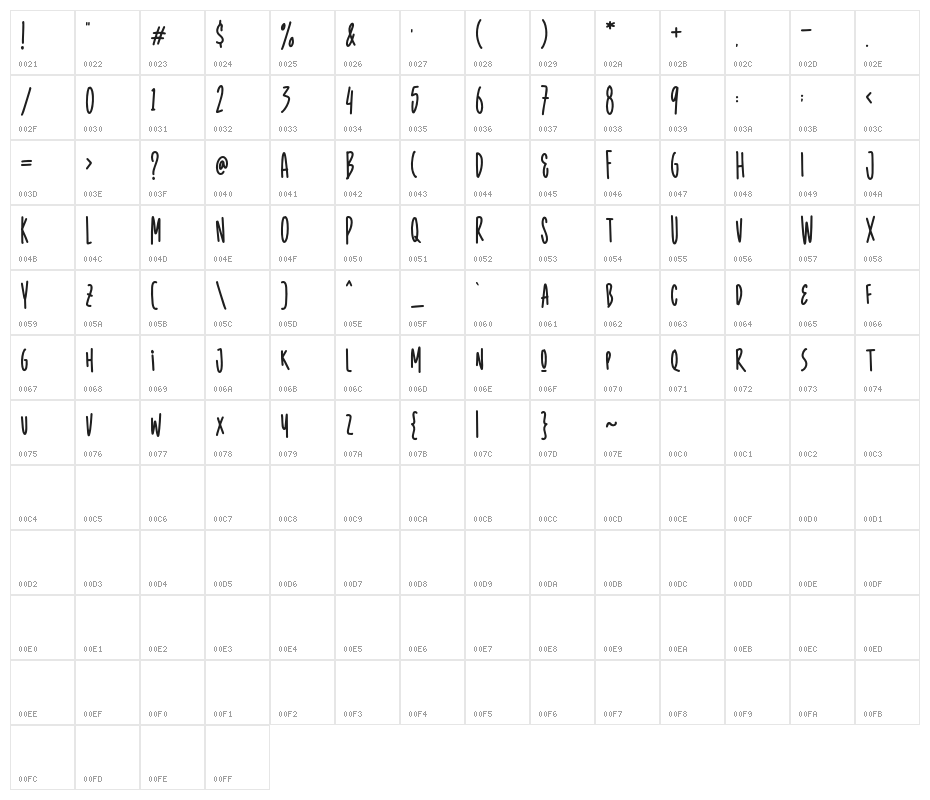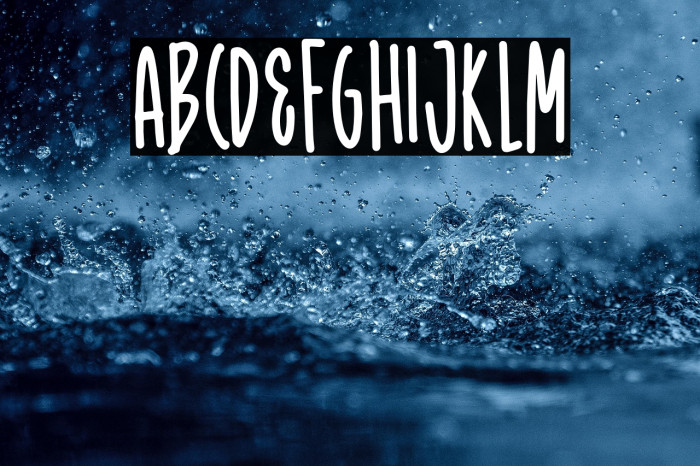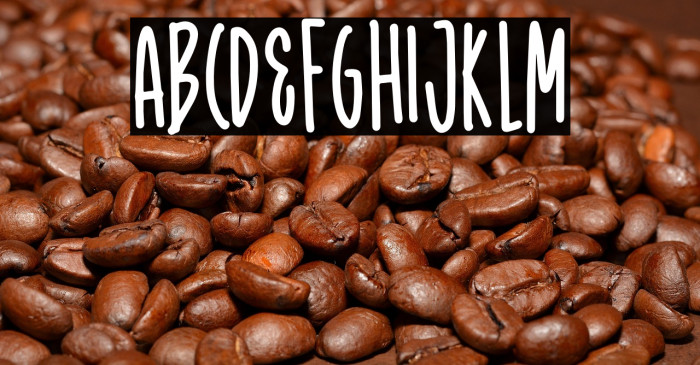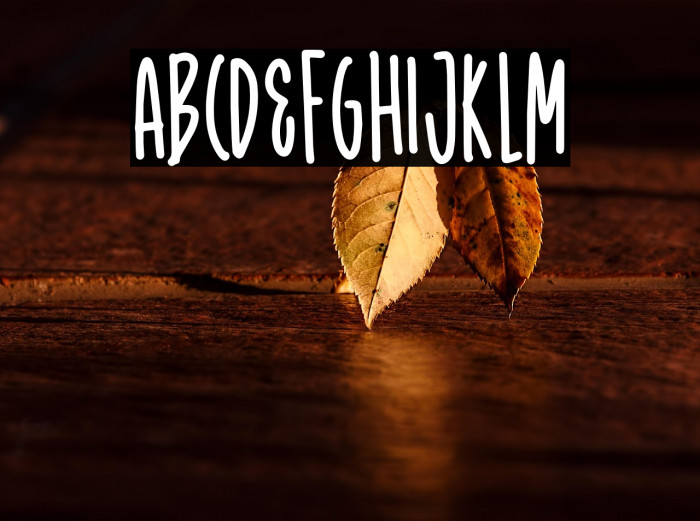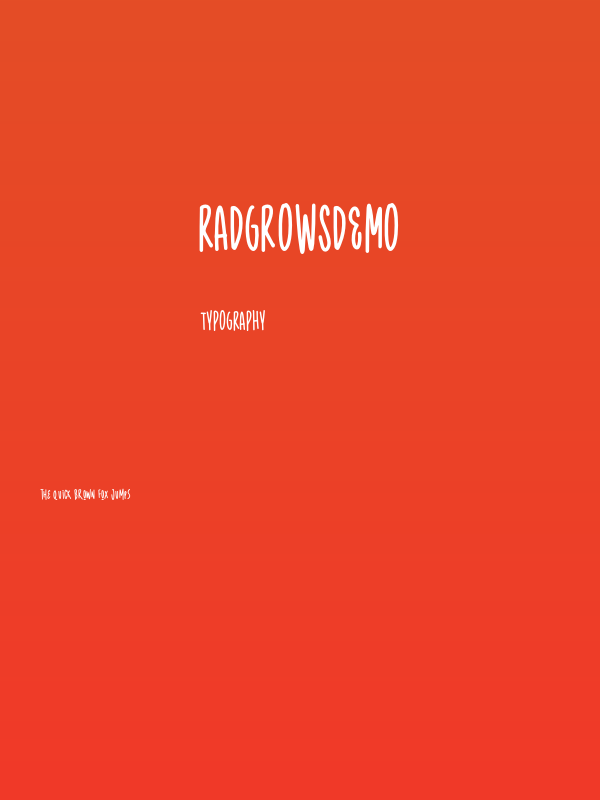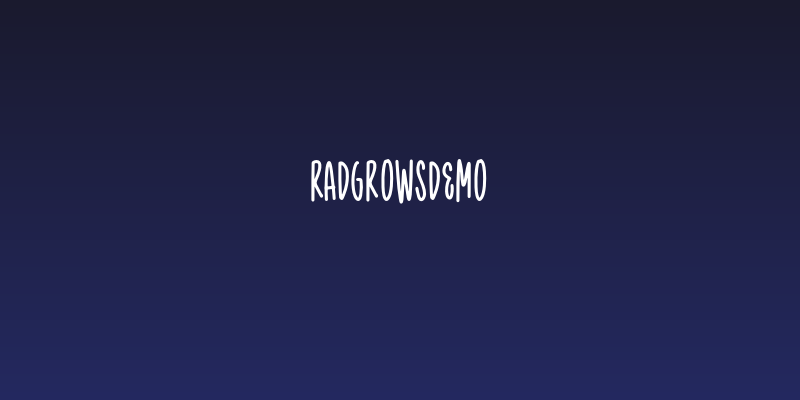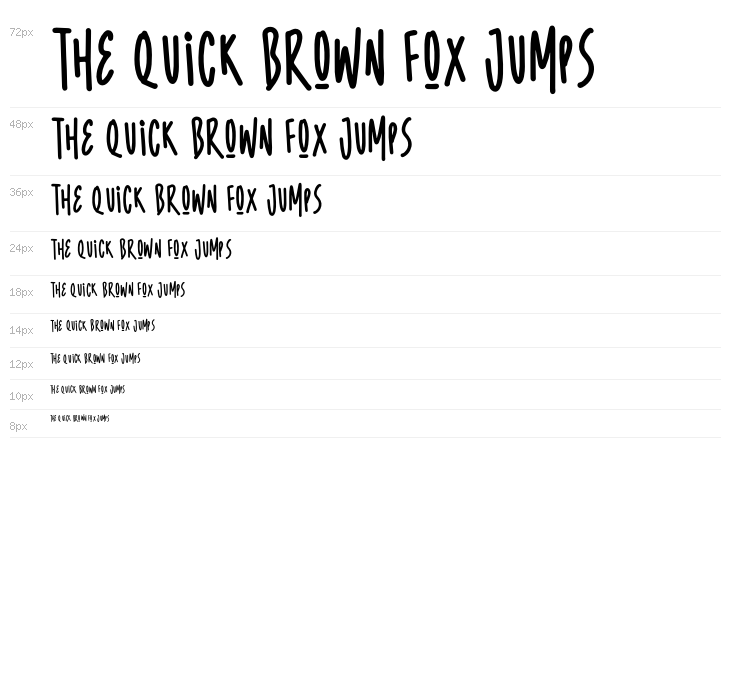
RadgrowsDemo Font
RadgrowsDemo Description
A playful, handwritten font with a casual and informal style, featuring slightly irregular strokes and a friendly appearance.
| Overall Style | Casual, Playful |
| Use Case | Headlines, Informal text |
| Proposed Projects | Greeting cards, children's books, informal invitations. |